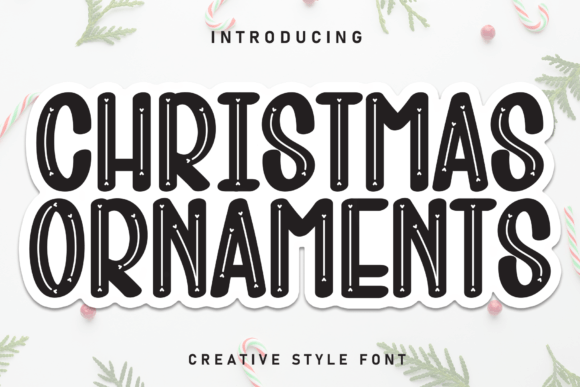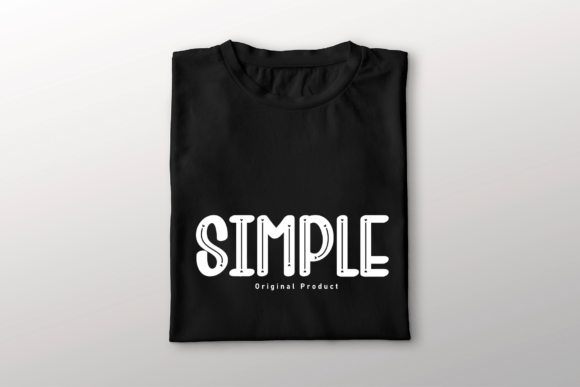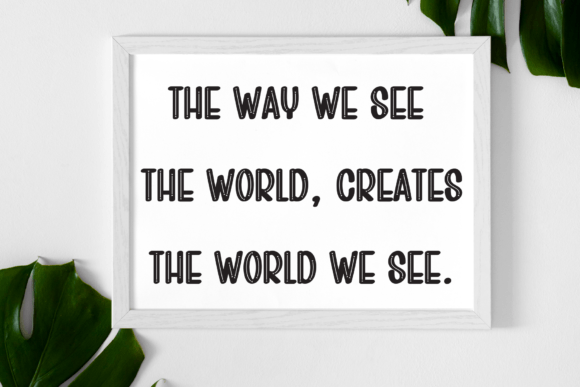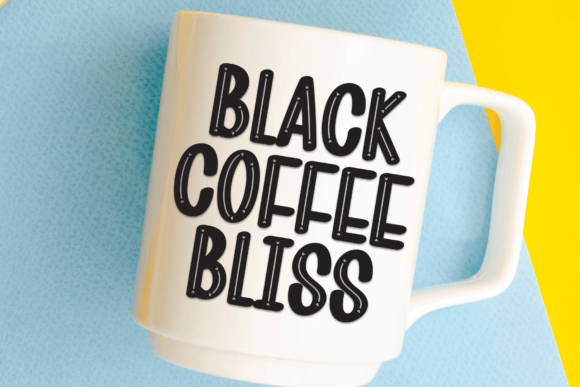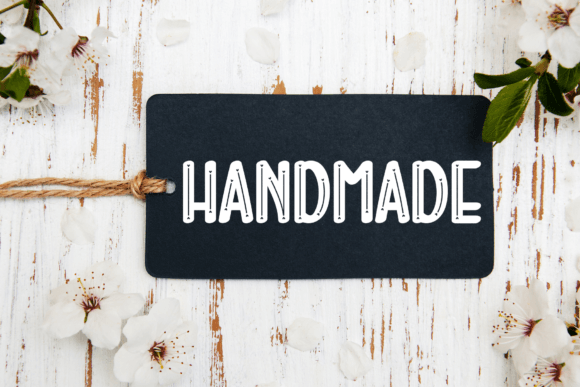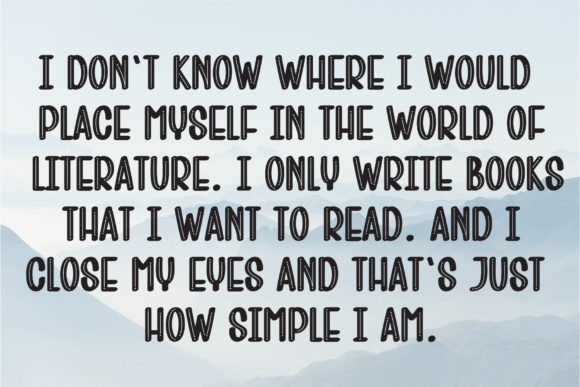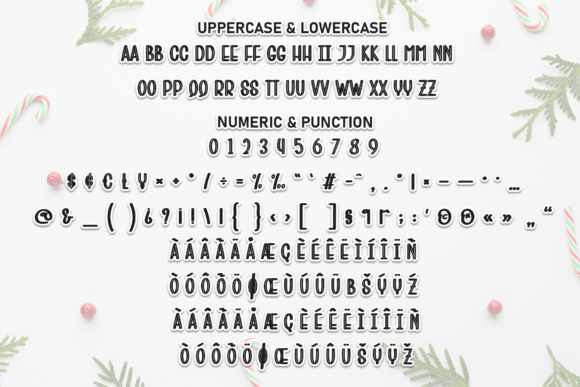
Deck the Halls with Style: The Magic of Christmas Ornaments Font
As the snowflakes start to fall and the festive lights twinkle, I find myself lost in a world of creativity, brainstorming new ideas for holiday projects. One year, while browsing through design inspiration, I stumbled upon a font that instantly captured my heart – the Christmas Ornaments Font. Its bold, stylish letters filled with hearts and lines are the perfect way to add a cheerful touch to any holiday project.
Christmas Ornaments Font is a versatile and charming font that is designed specifically to bring a festive feel to your designs. Whether you’re a graphic designer, a crafty DIY enthusiast, or simply someone who loves the holiday season, this font is a valuable addition to your design arsenal. With its playful, whimsical style, it’s no wonder that designers are clamoring to get their hands on this delightful font.
- Unique Characteristics: Features a unique blend of traditional and modern ornament designs, adding a touch of festive charm to any design project.
- Font Style: Includes a range of font styles, from bold and playful to elegant and sophisticated, allowing designers to choose the perfect look for their project.
Christmas Ornaments Font Review
Overall, I think the Christmas Ornaments Font is a fun and creative addition to any holiday design project. ✨ The font’s playful, hand-drawn style is perfect for capturing the whimsical spirit of the season. It’s a great choice for projects that need a little extra flair, like social media graphics, invitations, or packaging.
The font’s versatility is one of its strongest suits. ✨ It comes in a range of weights and styles, from bold and chunky to delicate and elegant. This makes it easy to use in a variety of contexts, from headings and titles to body text and decorative elements.
While the Christmas Ornaments Font is a lot of fun to use, there are a few limitations to be aware of. ⚠️ One of the biggest is its limited character set. While it includes a range of letters and numbers, it doesn’t include all the symbols and punctuation marks you might need for a complete project.
- ⚠️ Limited character set, may require additional font or workarounds for full project completion
- ⚠️ Not ideal for projects that require a high level of precision or technical control
Overall, I think the Christmas Ornaments Font is a great choice for designers looking to add a little holiday cheer to their projects. With its playful style and versatility, it’s a great addition to any holiday design arsenal.
To get the most out of the Christmas Ornaments Font, use it for:
- Christmas card designs and invitations.
- Holiday-themed social media posts and graphics.
- Party and event invitations.
Remember to experiment with different font sizes and styles to achieve the desired effect.
What is the recommended font size for using the Christmas Ornaments Font?
The recommended font size for the Christmas Ornaments Font is between 24pt and 48pt. This size range allows for clear readability and maintains the ornate details of the font. However, you can adjust the font size according to your design requirements and preferences.